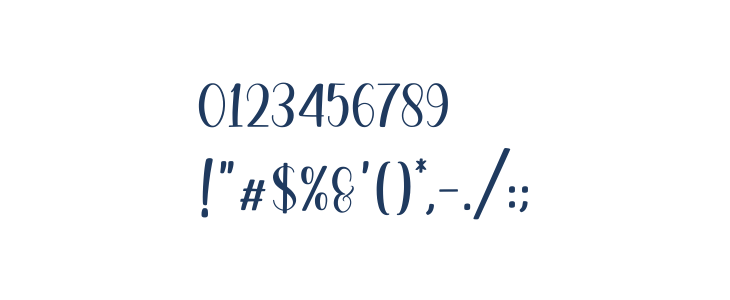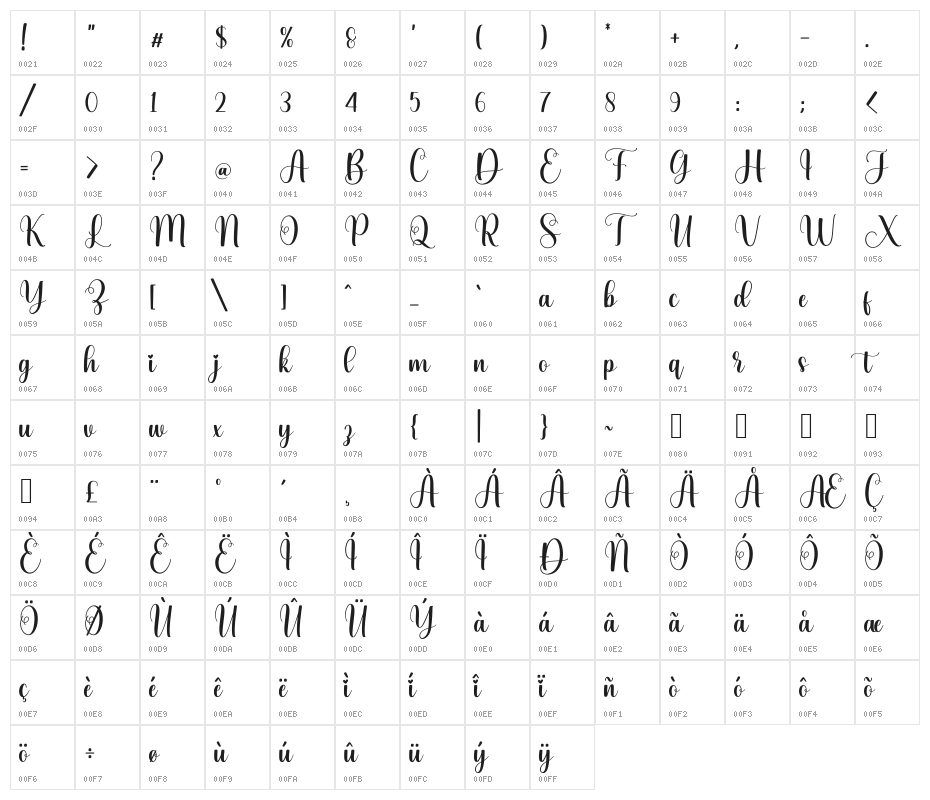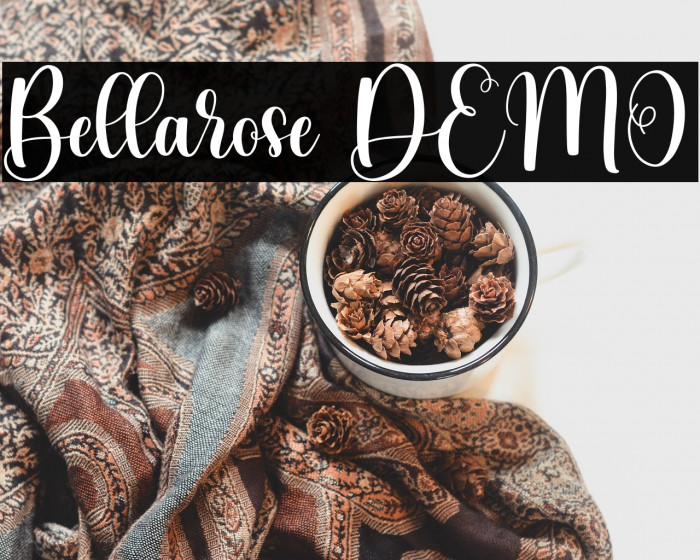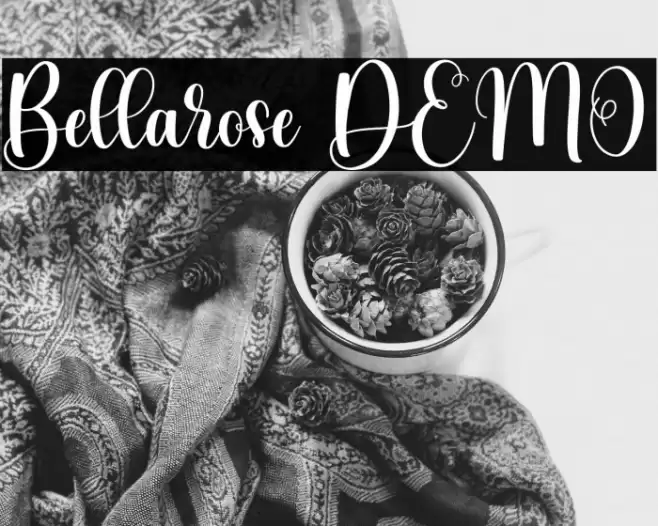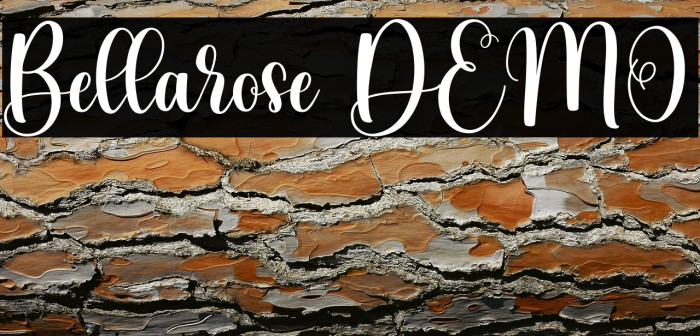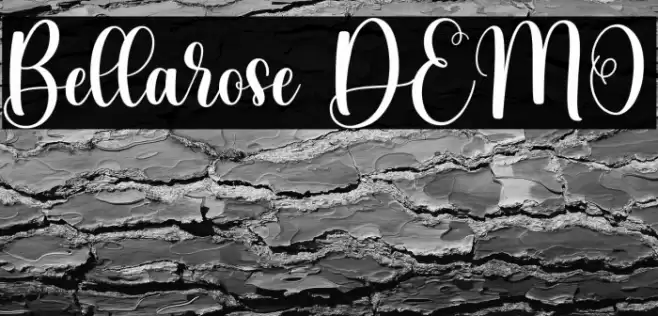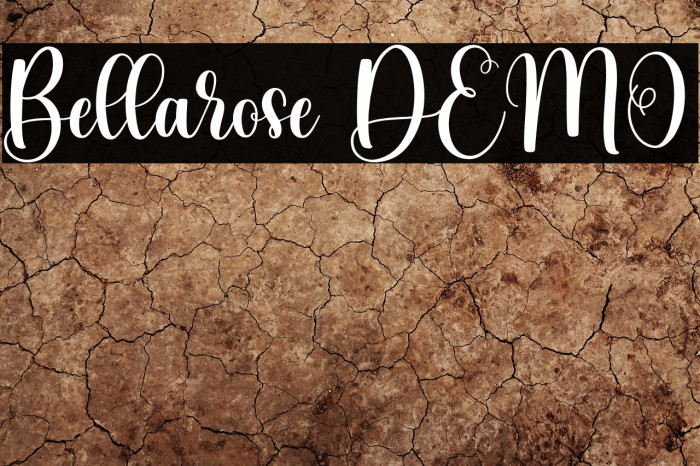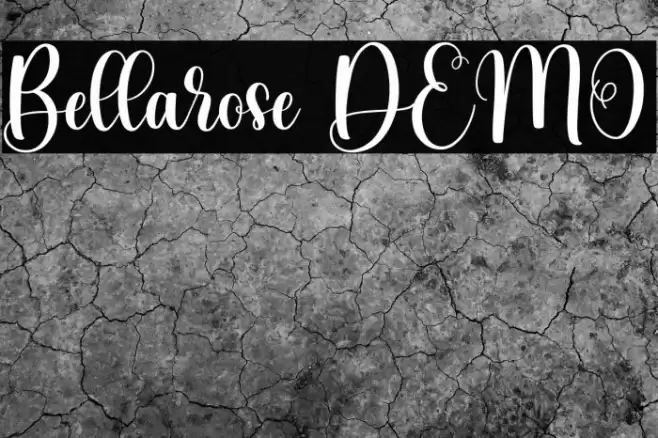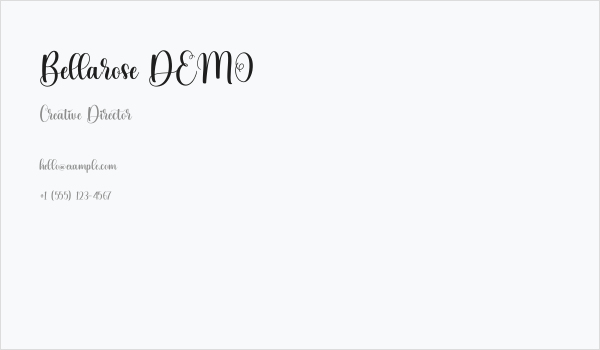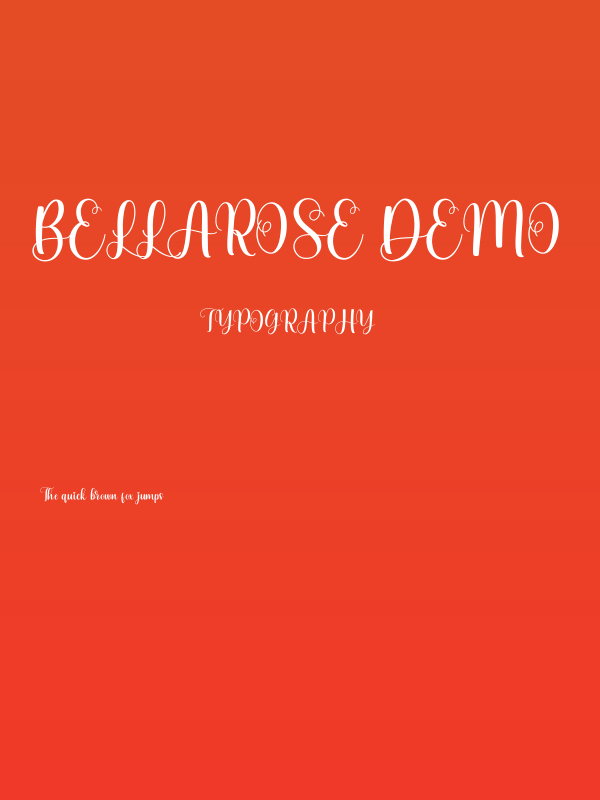
Bellarose DEMO Font
Bellarose DEMO Description
This font features an elegant and flowing script style, characterized by its ornate and decorative letterforms. The uppercase letters are particularly elaborate, with intricate swashes and flourishes that add a sense of sophistication and grace. The lowercase letters maintain a consistent style, with smooth curves and a slightly more restrained use of embellishments. The numerals and special characters are designed to complement the overall aesthetic, ensuring a cohesive look across all text. This font is perfect for projects that require a touch of elegance and refinement.
| Proposed Projects | Ideal for wedding invitations, luxury branding, elegant packaging, and decorative signage. |